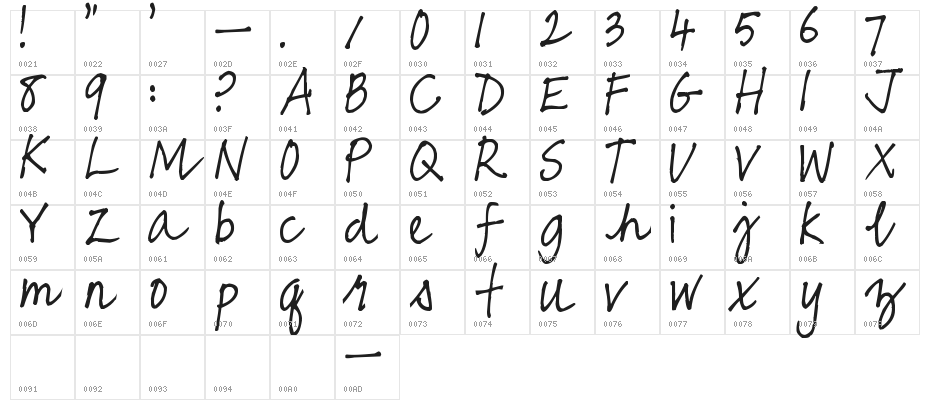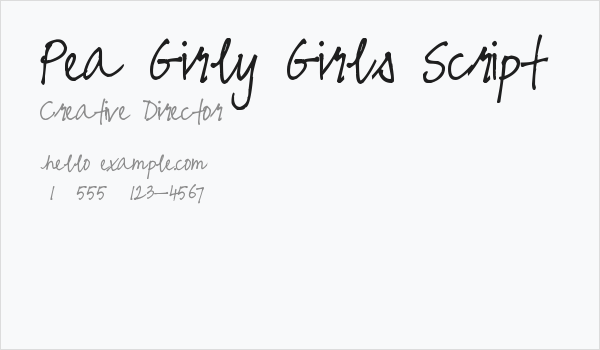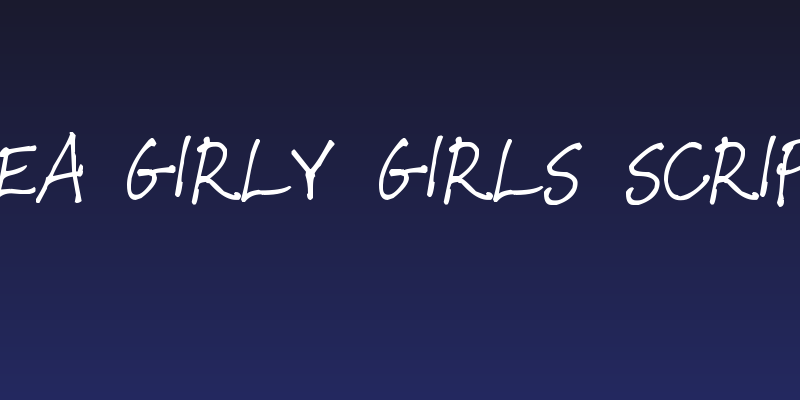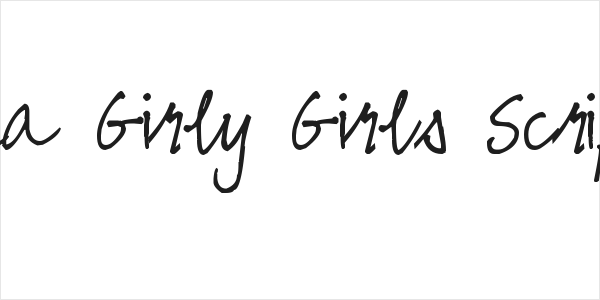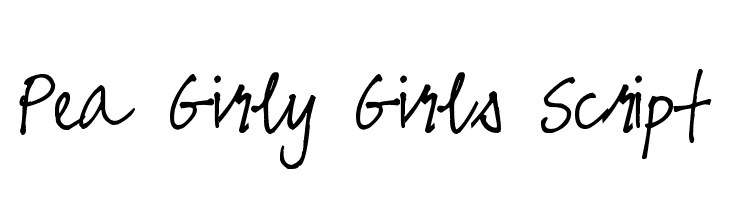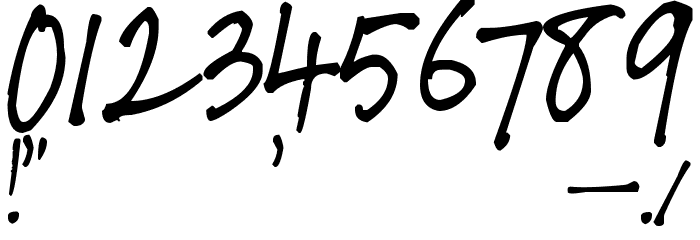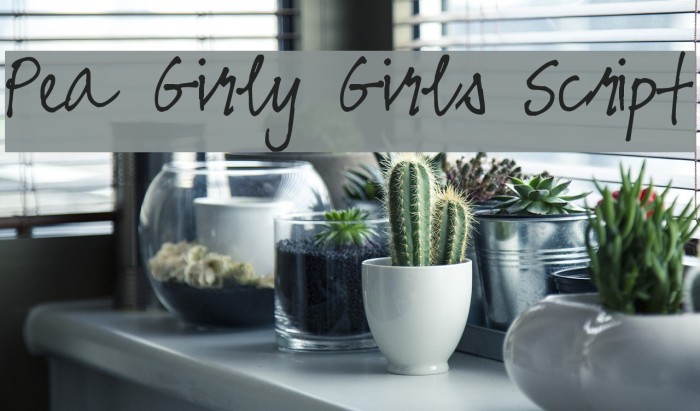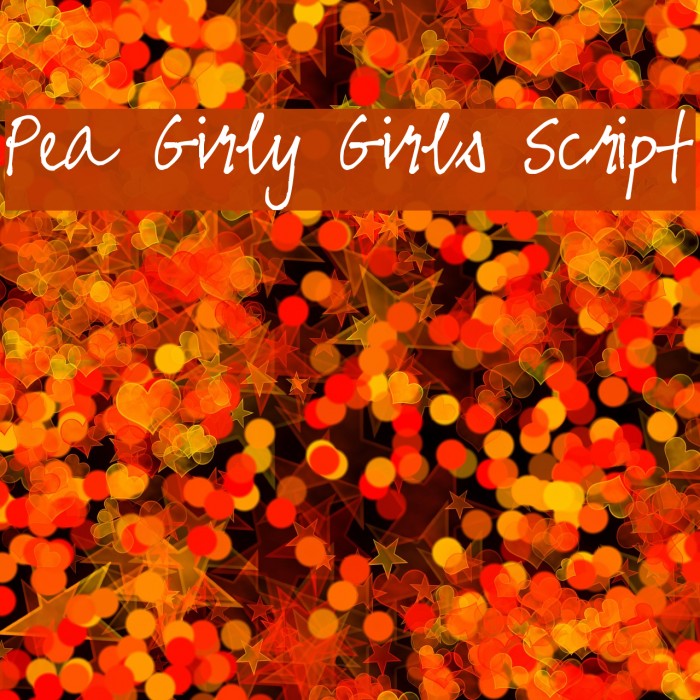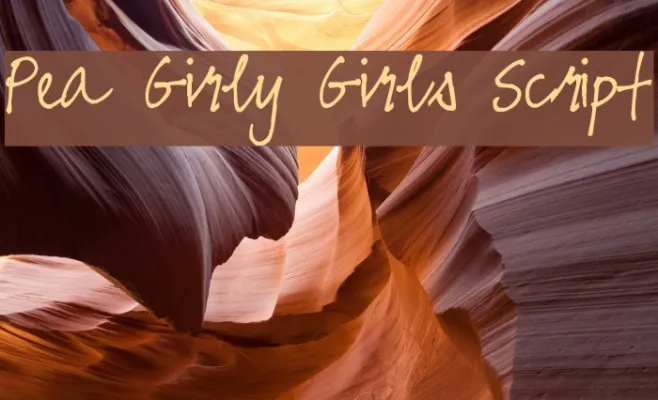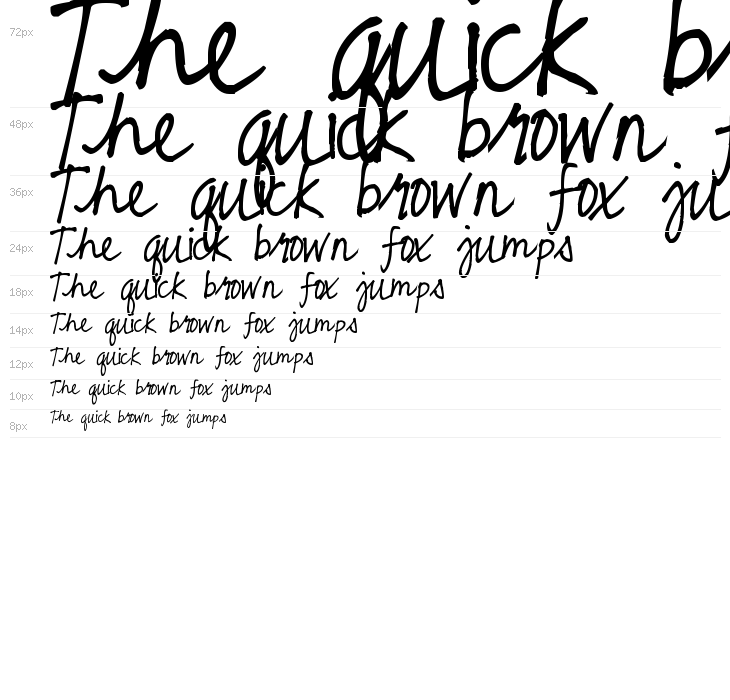
Pea Girly Girls Script Font
Pea Girly Girls Script Description
This font exudes a playful and casual handwritten style, characterized by its flowing script and slightly irregular strokes. The letters are connected in a fluid manner, giving it a natural and personal touch. The uppercase letters are bold and slightly slanted, while the lowercase letters maintain a consistent flow with a charmingly uneven baseline. The numerals and special characters follow the same whimsical style, adding to the font's overall cohesive look. This font is perfect for projects that require a personal, friendly, and approachable feel.
| Proposed Projects | Ideal for greeting cards, personal notes, invitations, and playful branding projects. |